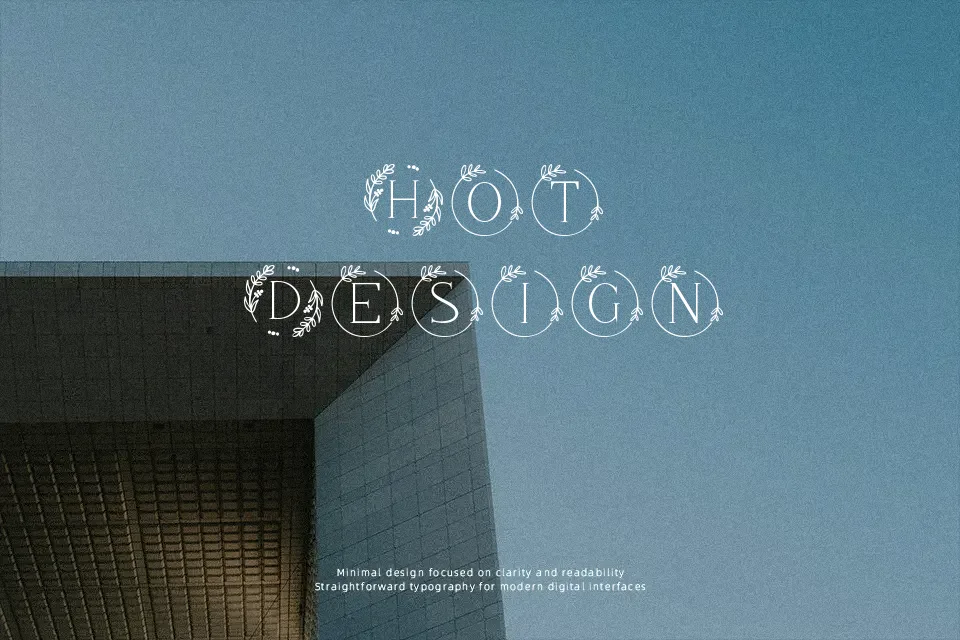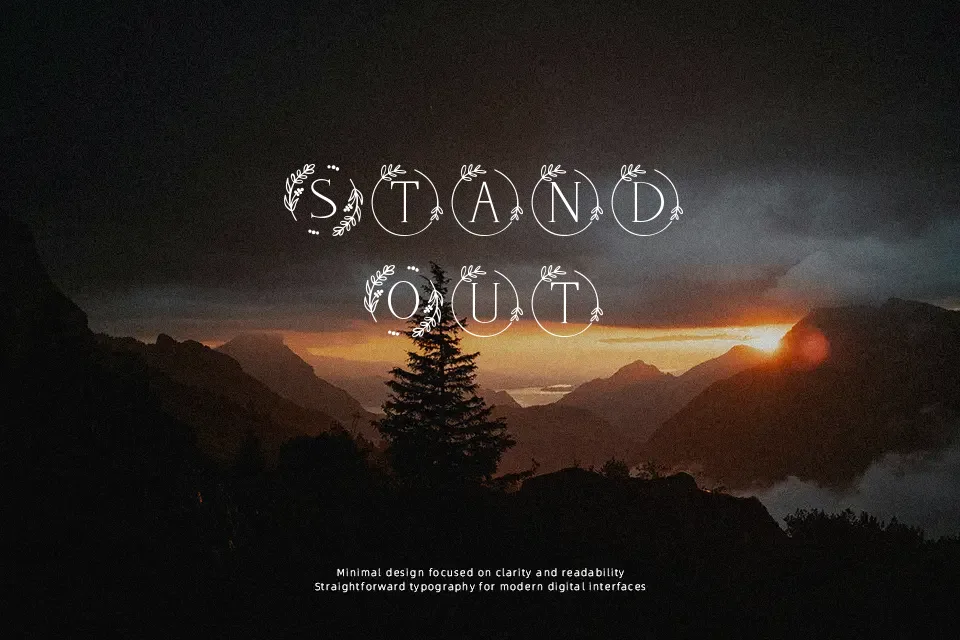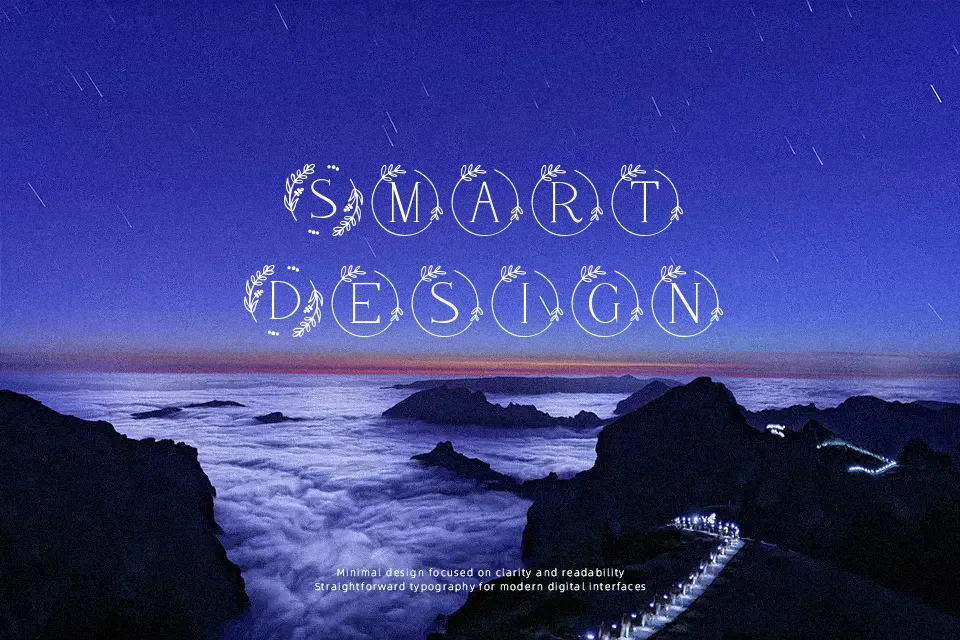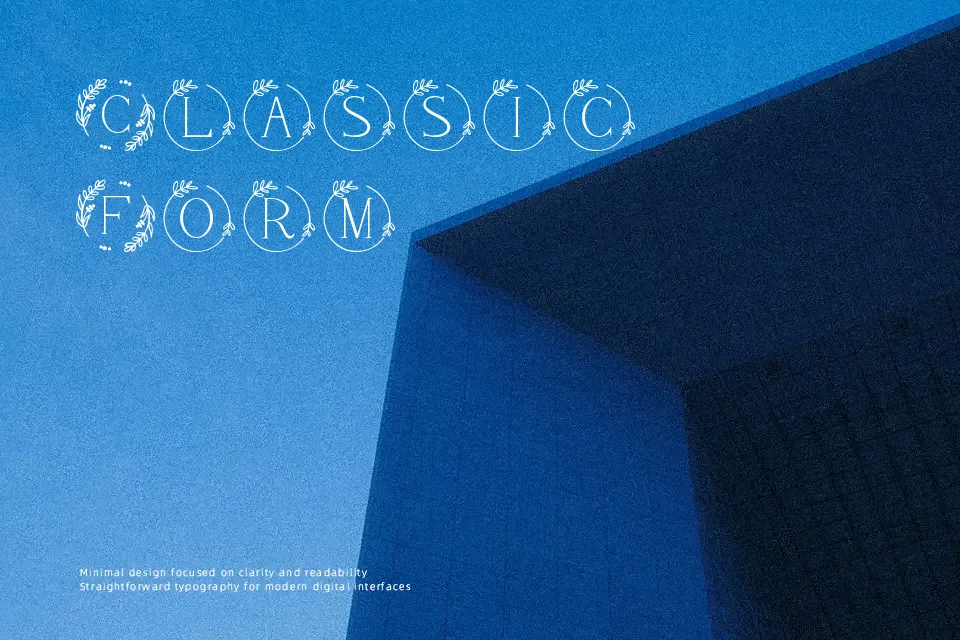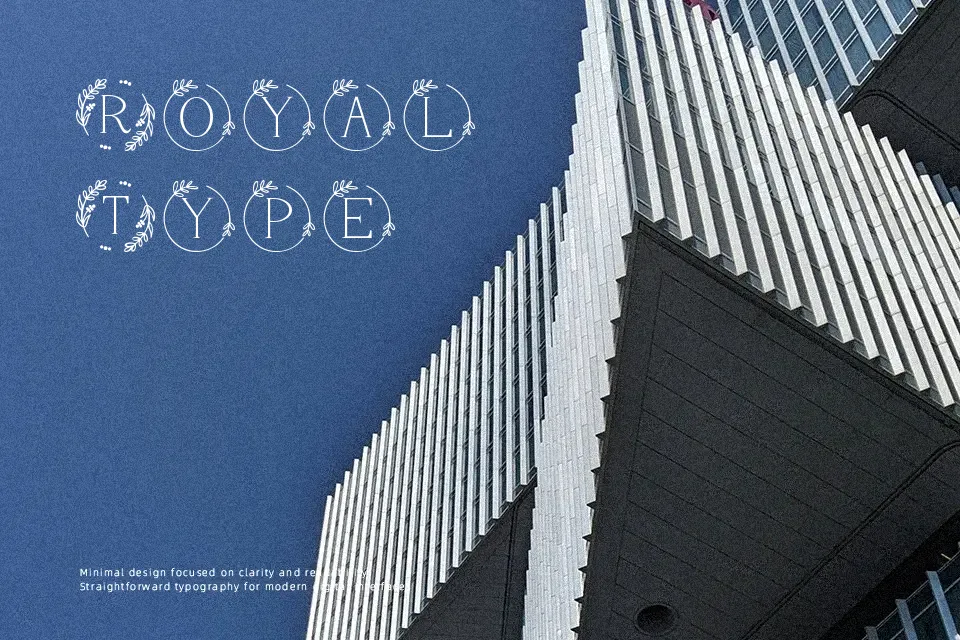
Nirmala Font
Nirmala Font uses decorative, initial-focused letterforms that give short text a crafted display presence. Its forms are best treated as individual visual elements rather than a conventional text system, with elaborate details carrying more weight than paragraph-level rhythm. The typeface works well for names, initials, invitation accents, and personalized labels where spacing can remain open and each character has room to show. Readability is strongest when used large and sparingly. In practical layouts, the ornamented structure becomes less clear in small captions, dense wording, or continuous reading.
Best For: wedding invitation initials,personalized gift labels,monogram logos,event stationery
Not Ideal For: long paragraph text,small interface labels,technical documents,dense editorial layouts
Perfect for branding, invitation, and logo, with a creative and decorative style.